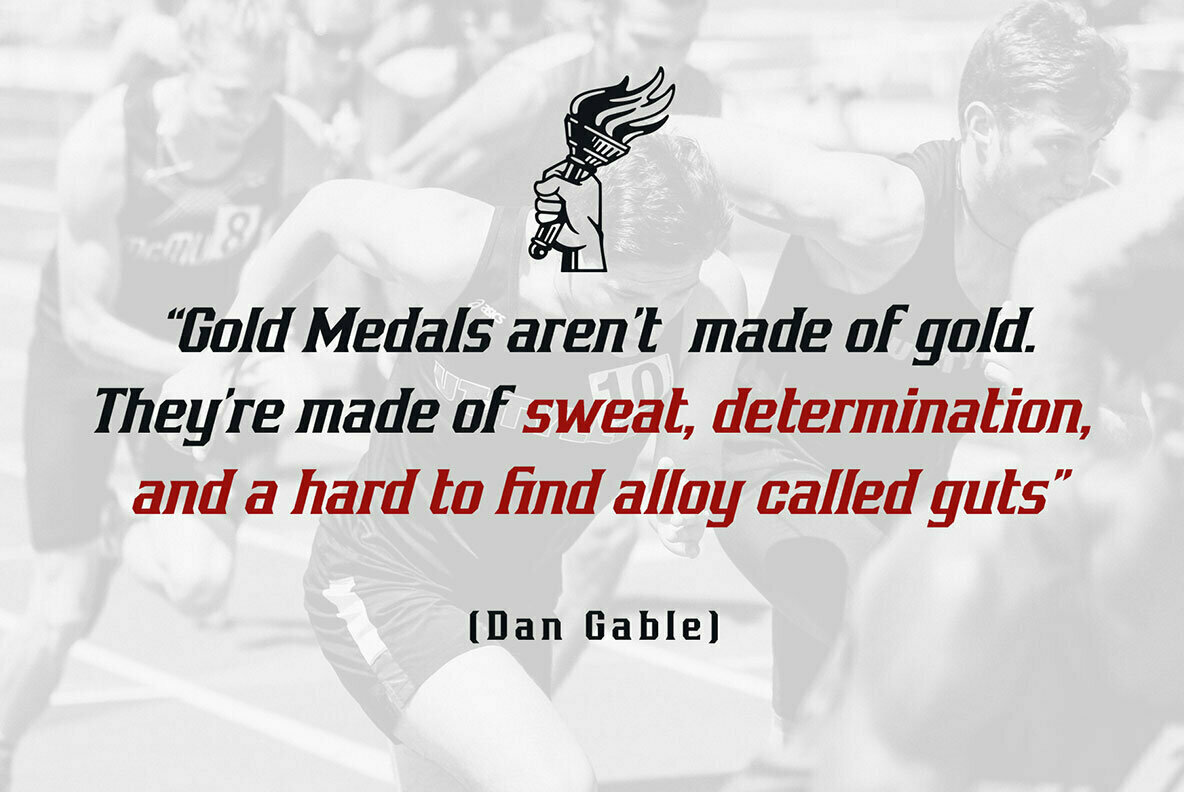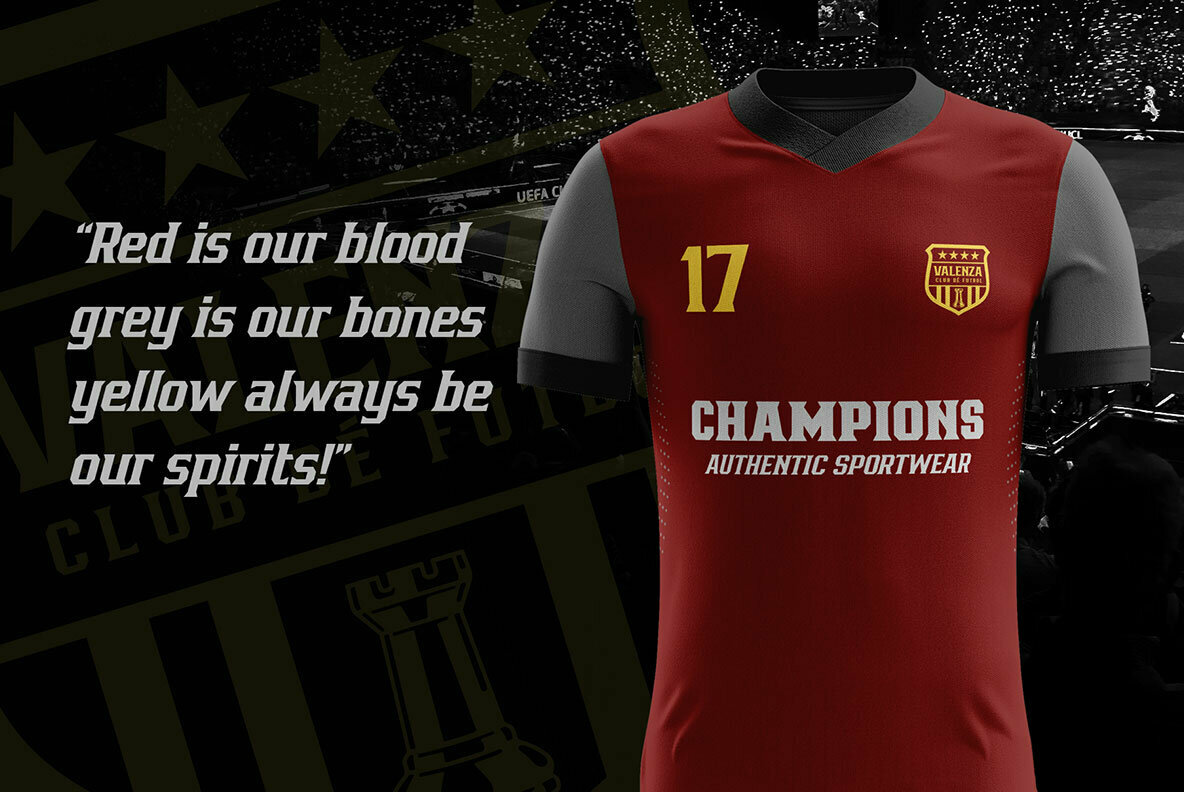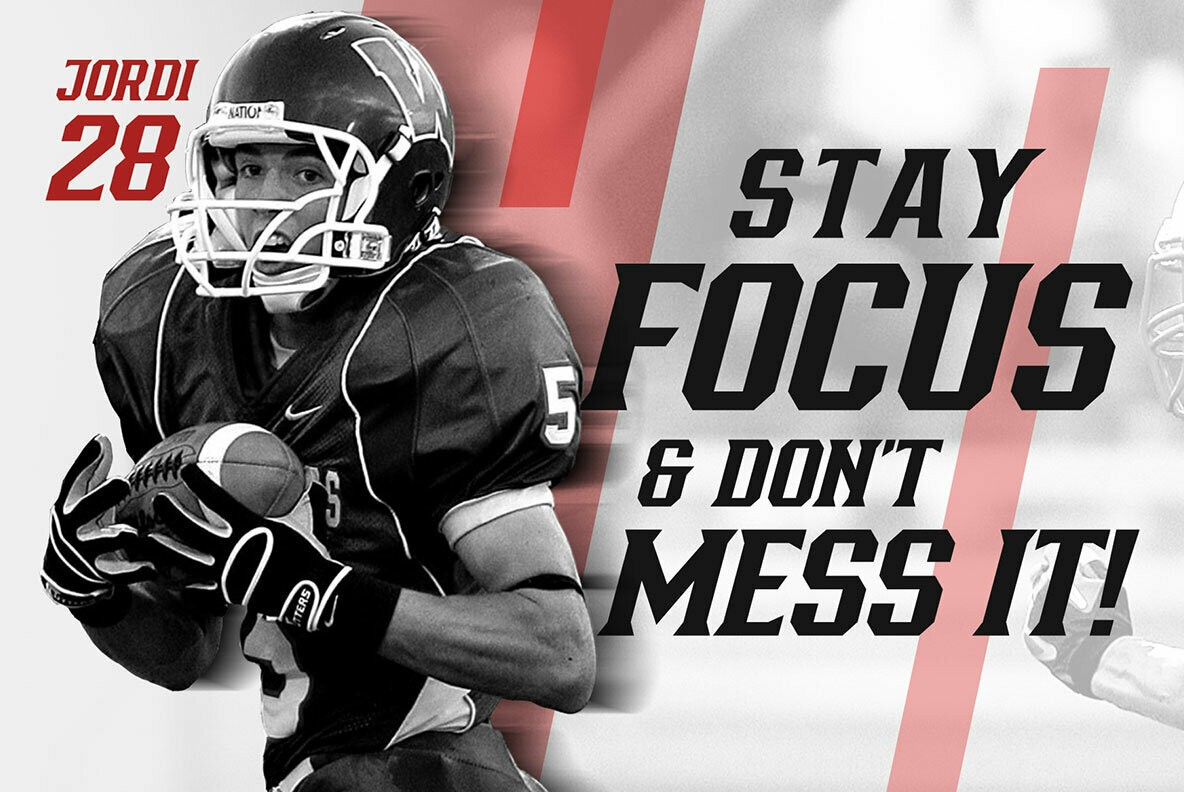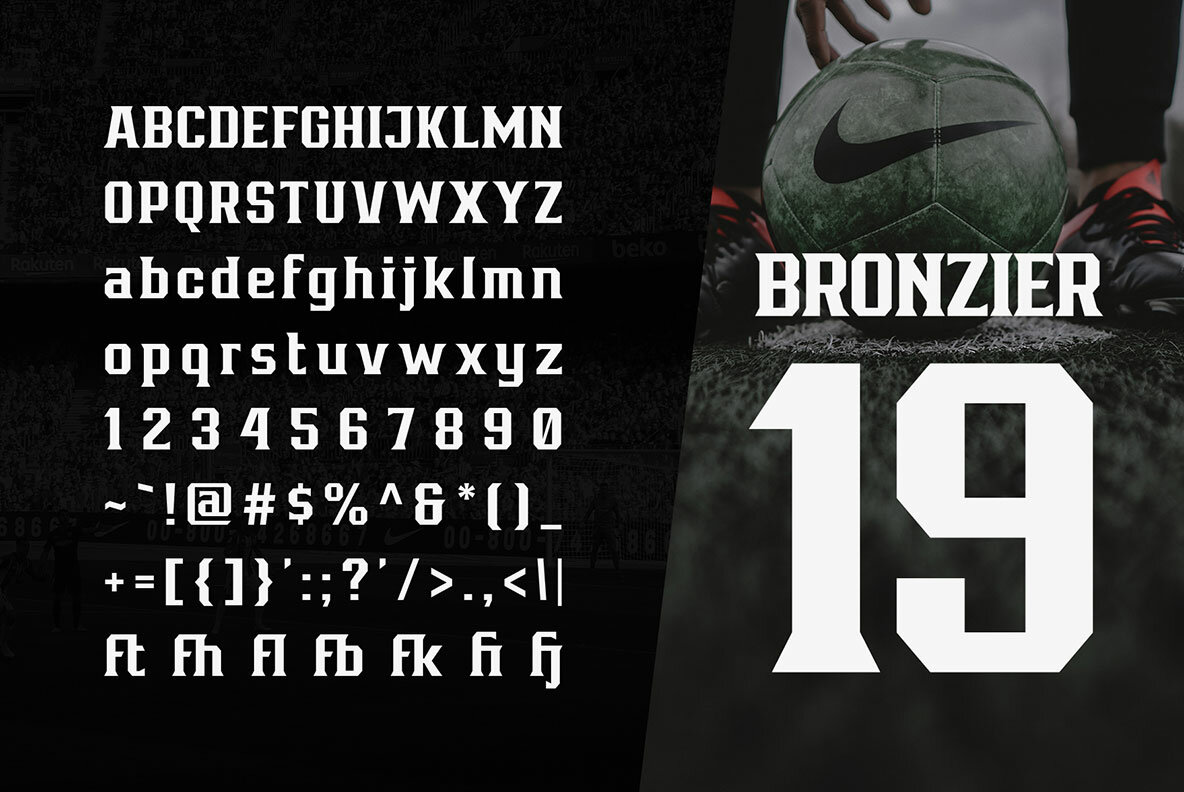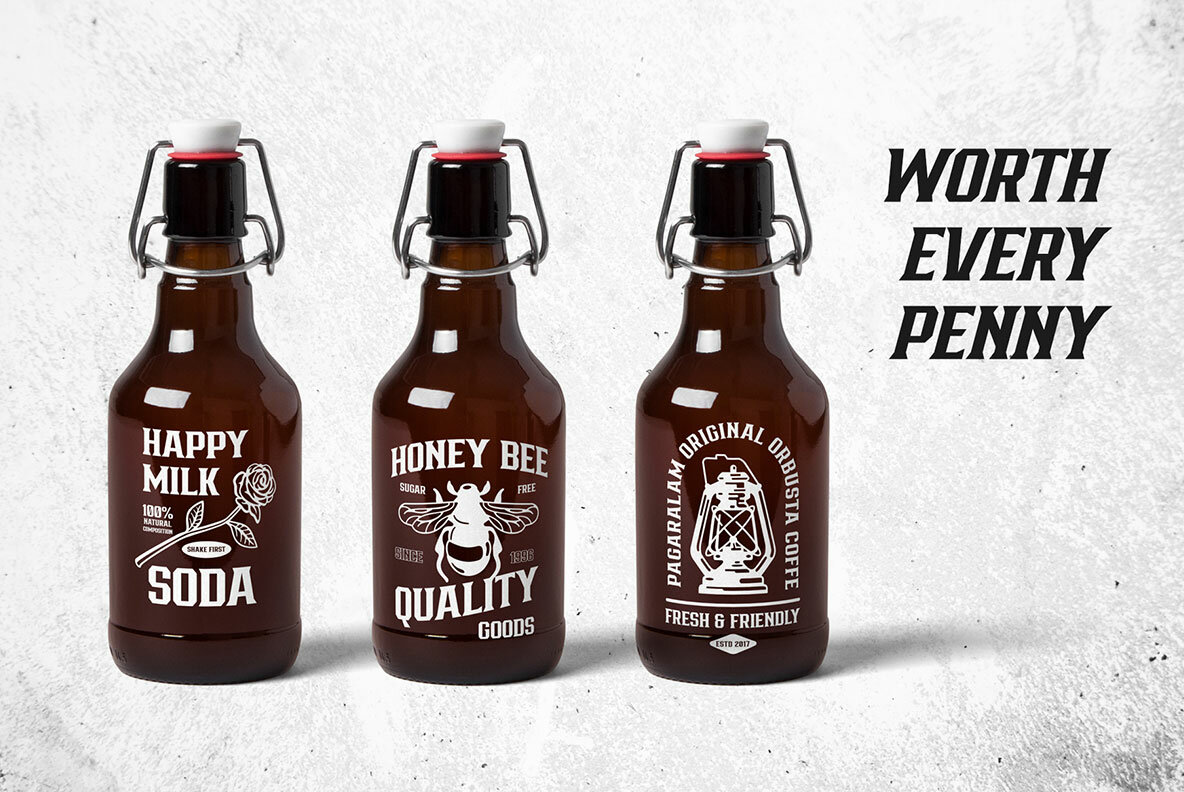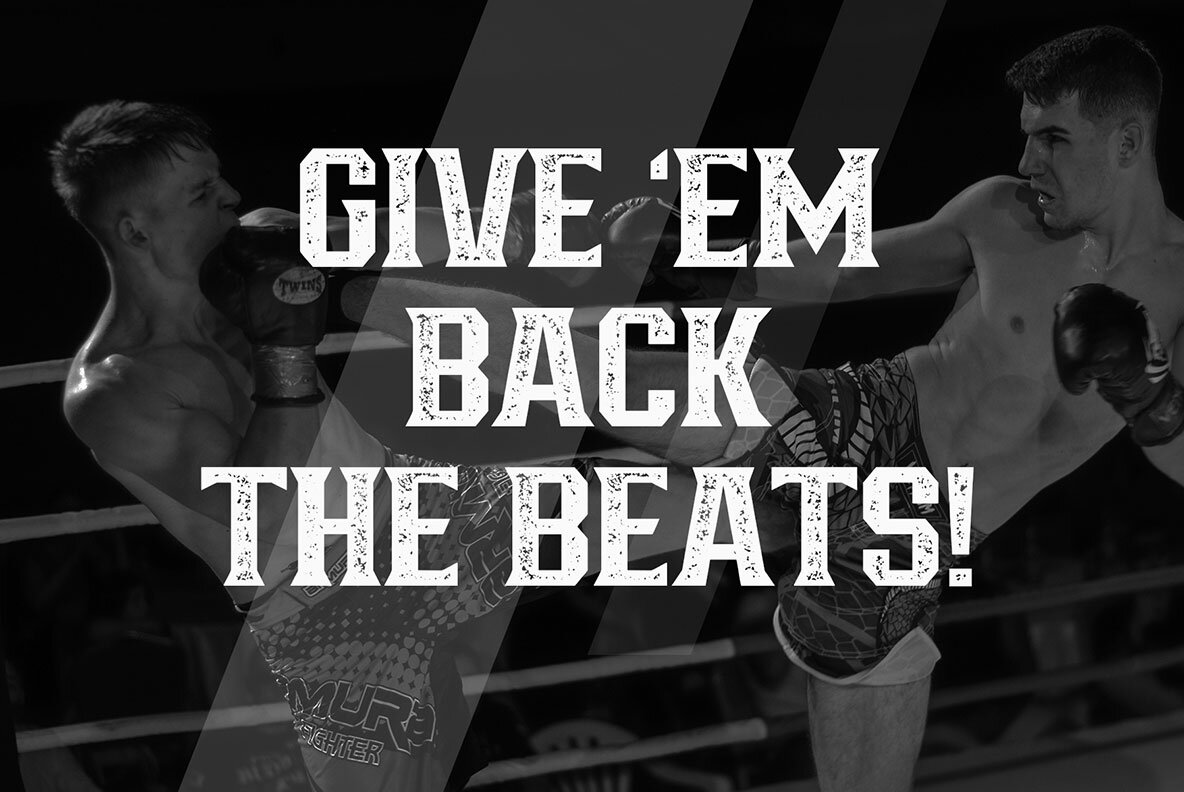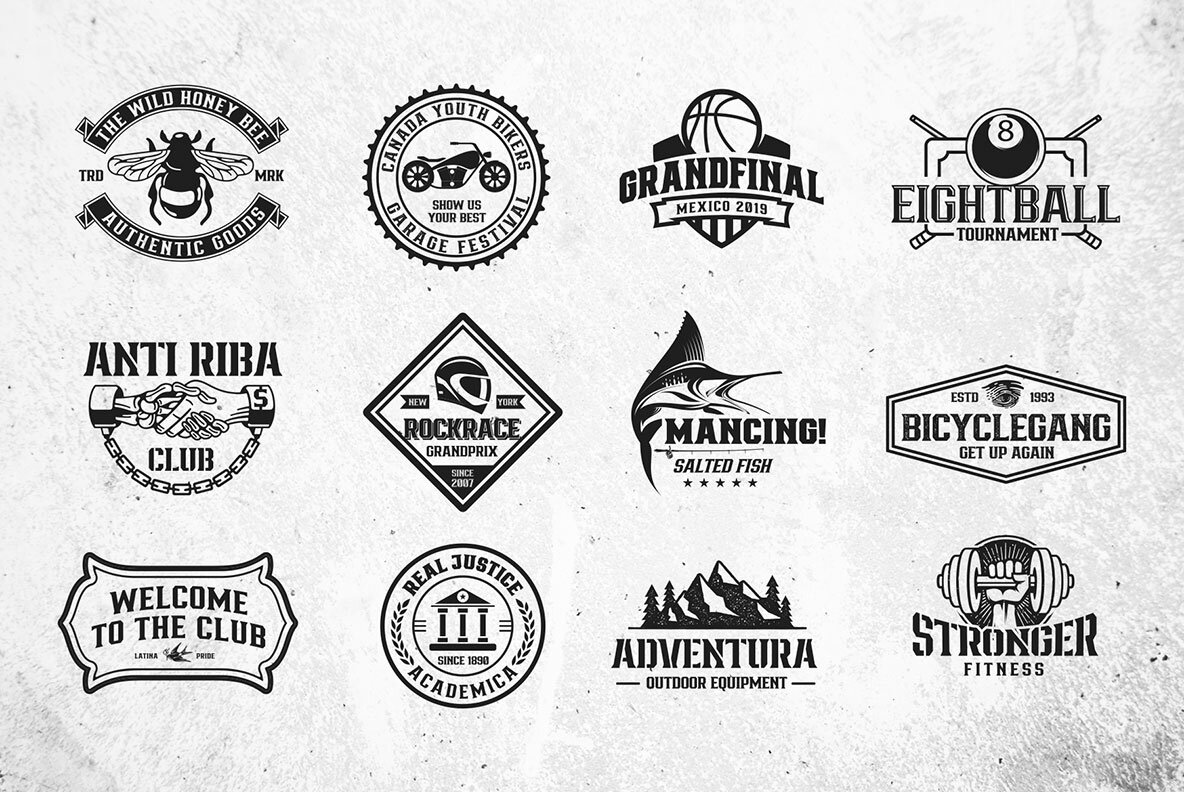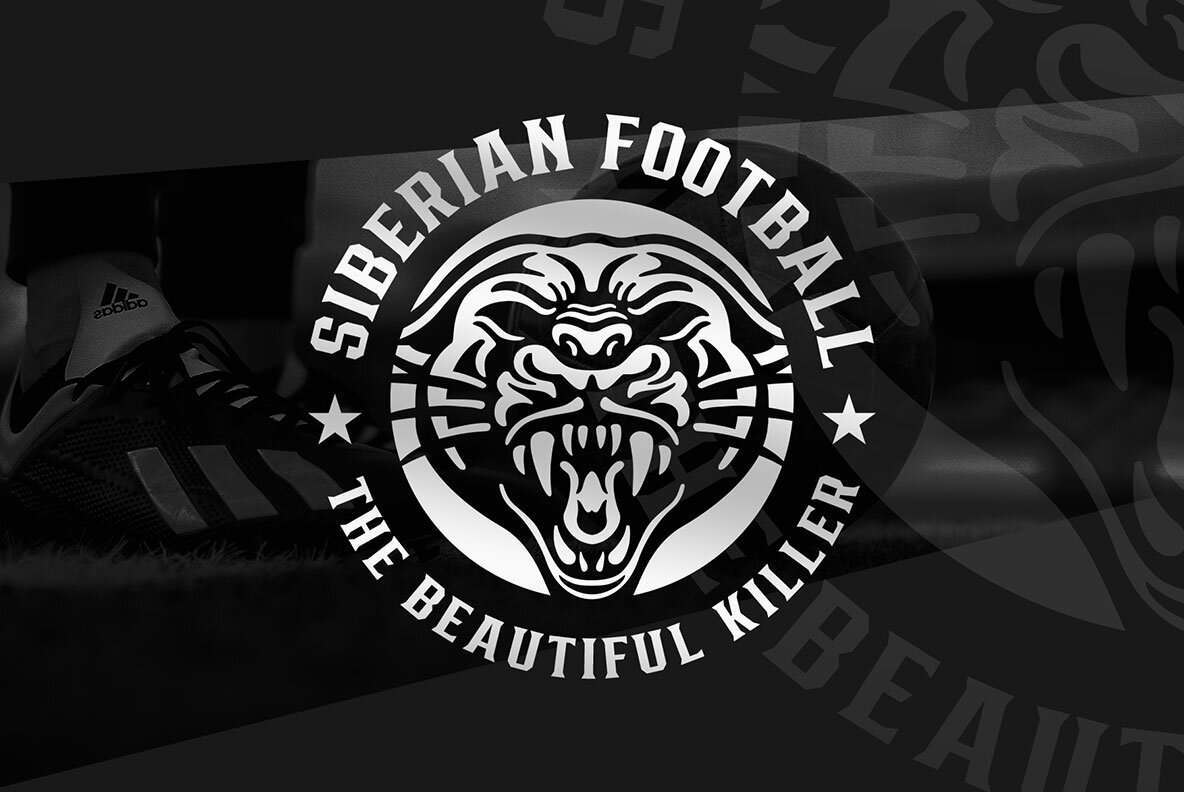
Bronzier Font
Bronzier brings a robust serif font style to your design arsenal. This typeface exhibits a distinctive mix of sporty, vintage, and modern aesthetics, making it a versatile choice for branding and beyond. Ideal for a wide range of applications, Bronzier enhances logos, apparel, posters, and more, capturing the essence of old-school typography with a modern twist.Bronzier: Dynamic Serif with Vintage Flair